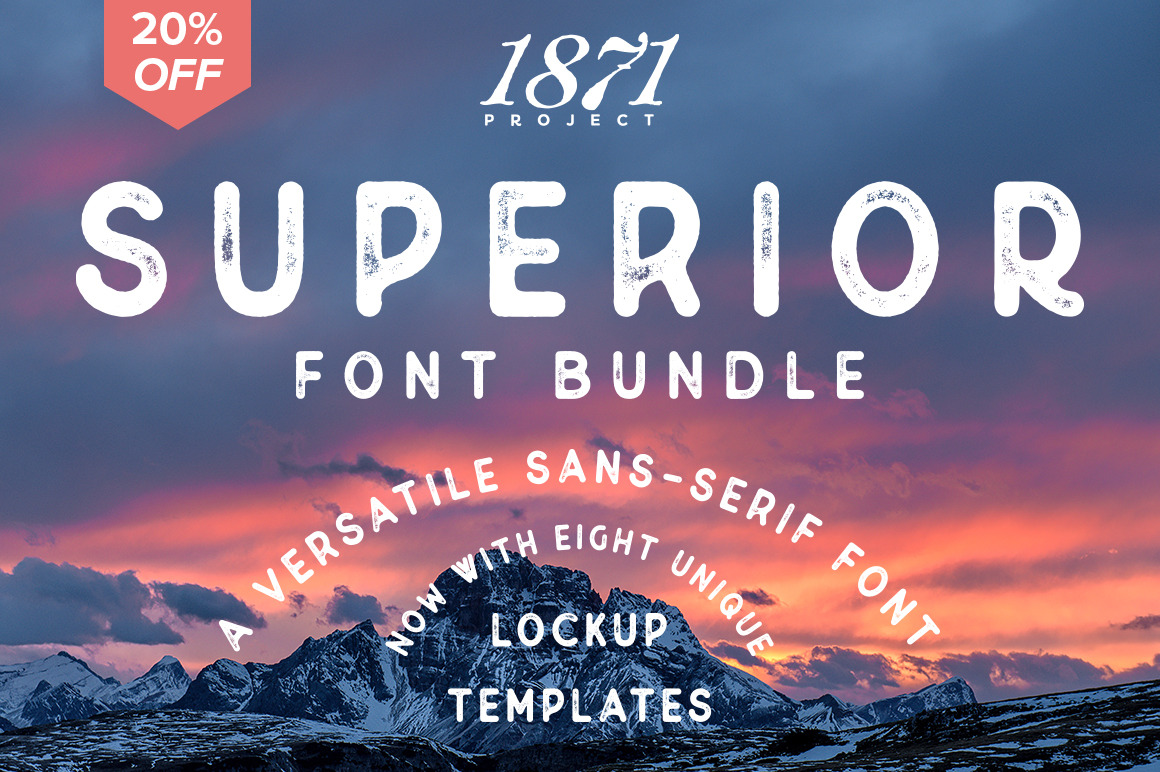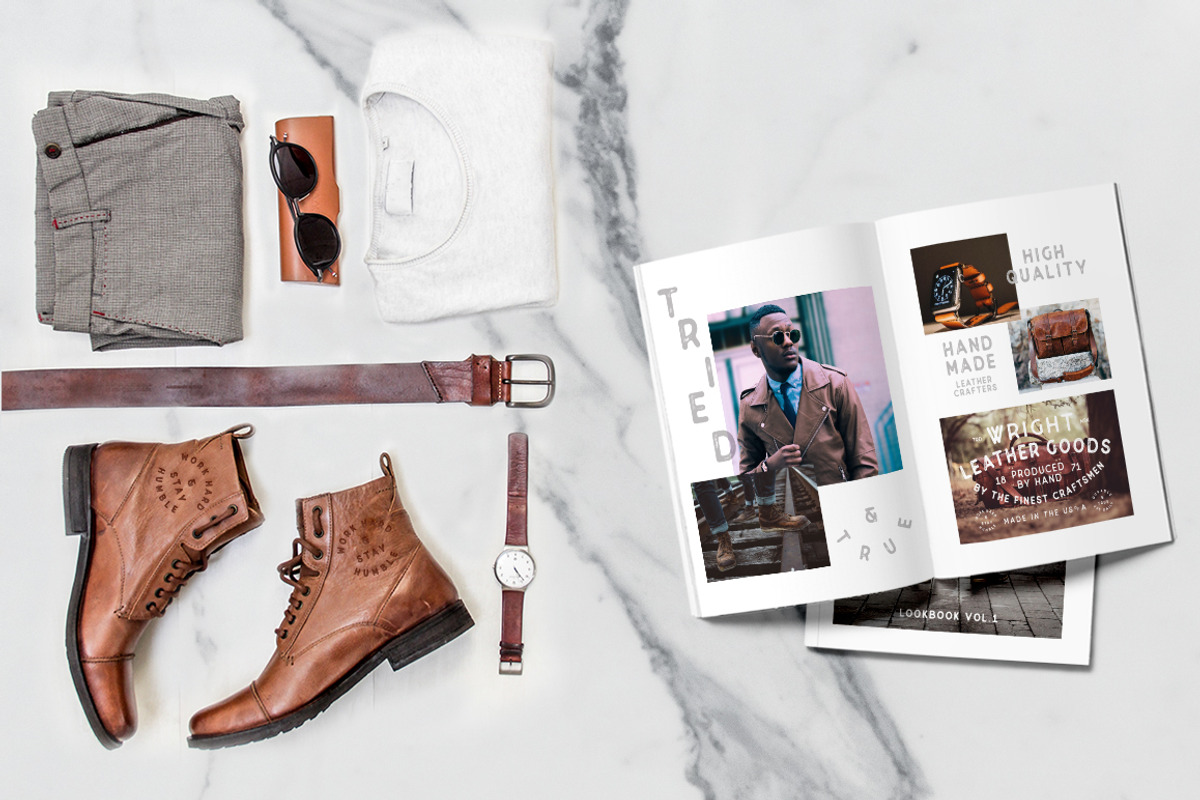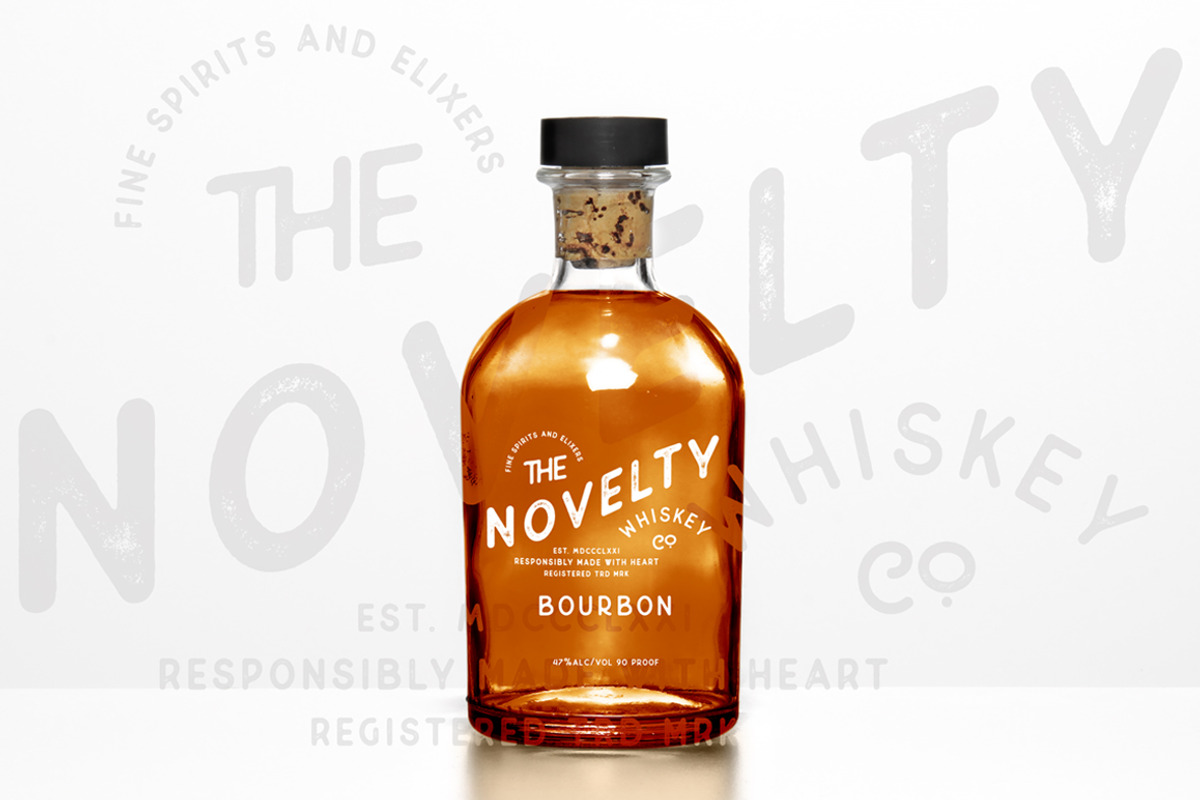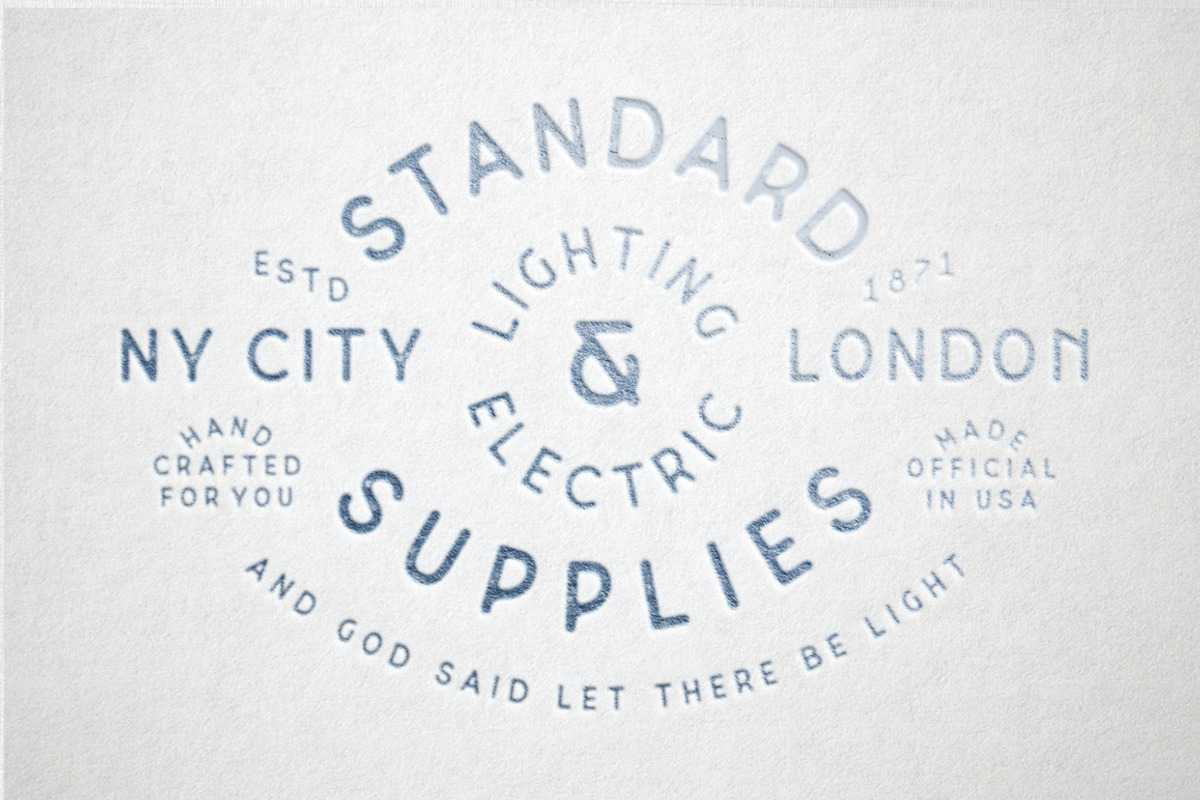
Superior Font Bundle
UPDATE! Now featuring a stamp version and 8 unique lockup templates perfect for logos, packaging, posters & shirts!
Superior is a hand crafted sans serif font. It takes inspiration from vintage packaging, especially the secondary type you see on old matchboxes. Each edge is rounded to imitate the printing techniques used on old matchboxes. This simple modern sans-serif is perfect for logos or secondary type. You can use it for t-shirts, lockups, posters, branding, etc!
- Superior comes in 2 weights
- Superior also comes in 6 different styles
- Use shift or caps-lock for alternate letters